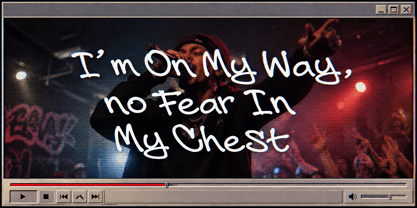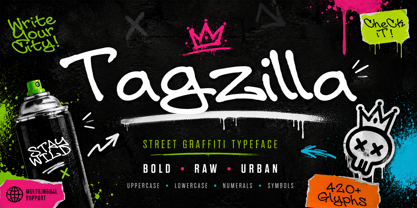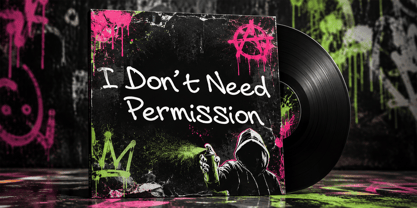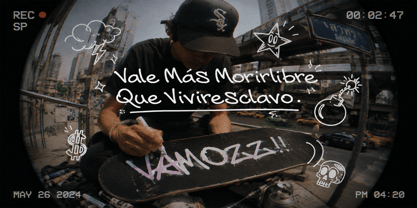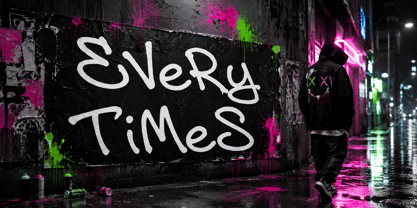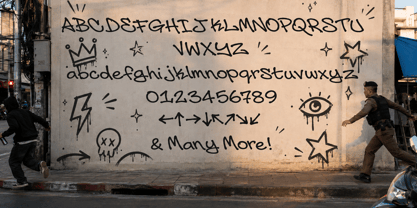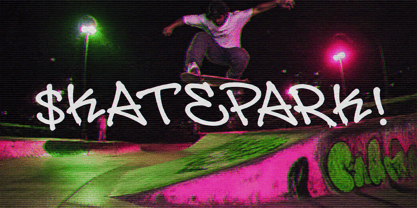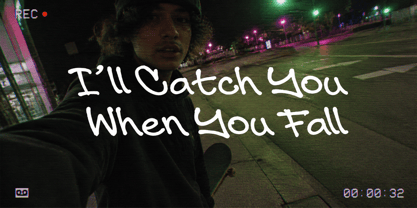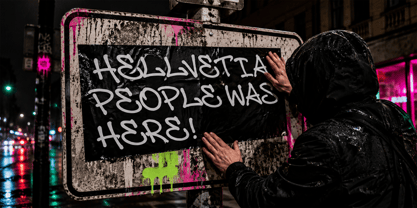
Tagzilla
by Atasi Studio
The Tagzilla Font Family was designed by Rizka Prayuda and published by Atasi Studio. Tagzilla contains 2 styles and family package options. More about this family
Tagzilla is a bold street graffiti typeface made to bring raw urban energy into your designs. Inspired by spray paint tags, wall art, and street culture, this font delivers a loud, expressive, and rebellious look that instantly grabs attention. Perfect for streetwear branding, posters, stickers, music covers, skate graphics, apparel, logos, and social media designs, Tagzilla helps your work feel bold, wild, and full of attitude. Just type your words and turn any project into a strong graffiti-inspired statement.
Designers: Rizka Prayuda
Foundry: Atasi Studio